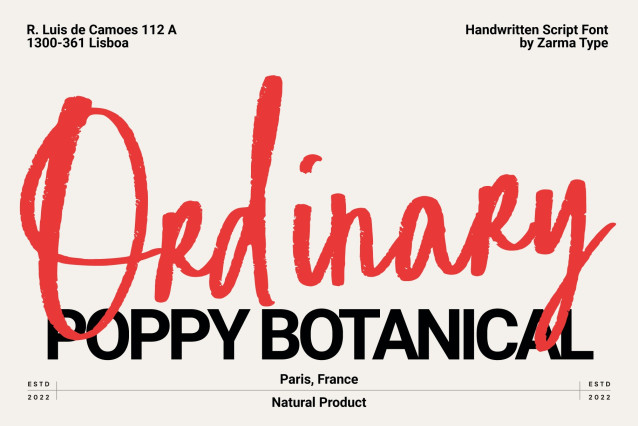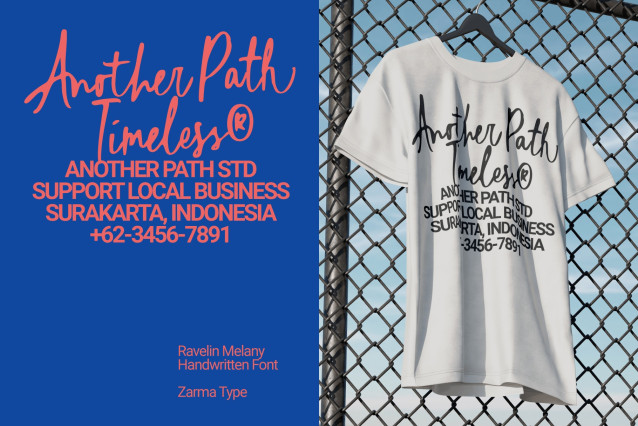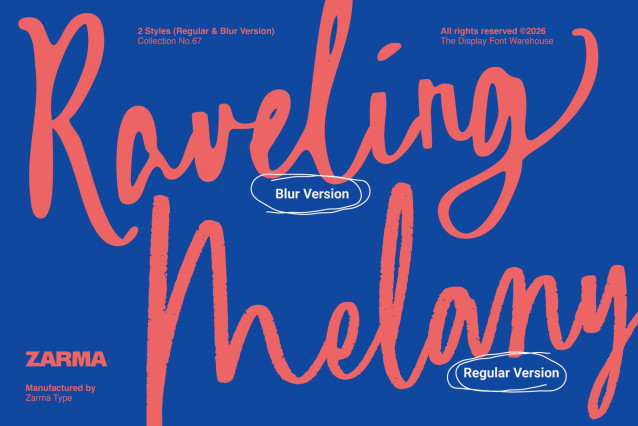
Raveling Melany is a messy handwritten font inspired by real marker strokes, spontaneous notes, and expressive lettering. Every character carries subtle imperfections that make your typography feel genuine, personal, and confidently handcrafted instead of mechanically perfect. Designed with both Regular and Blur styles, this font helps you create eye-catching compositions with authentic personality for modern branding, editorial projects, social media graphics, apparel, packaging, posters, and creative campaigns.
Beyond its organic appearance, Raveling Melany balances expressive energy with excellent readability. The carefully drawn letterforms maintain a natural handwritten rhythm while remaining clean enough for logos, headlines, merchandise, and visual identities. More than 50 ligatures and over 75 stylistic alternates allow every word to flow naturally, making repeated letters feel unique and preventing the artificial repetition often found in digital handwriting fonts.
Whether you’re building a lifestyle brand, designing coffee packaging, creating fashion campaigns, or producing editorial layouts, Raveling Melany brings warmth, movement, and personality into every project. The included Blur Version offers an additional experimental style that works beautifully for contemporary posters, album artwork, creative advertising, nostalgic aesthetics, and expressive visual identities.